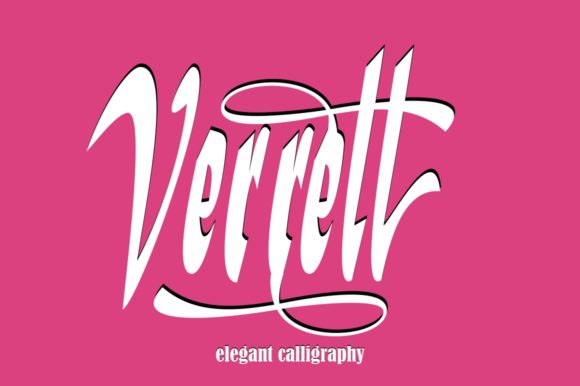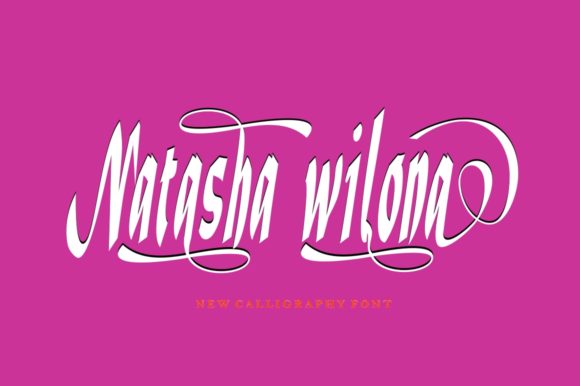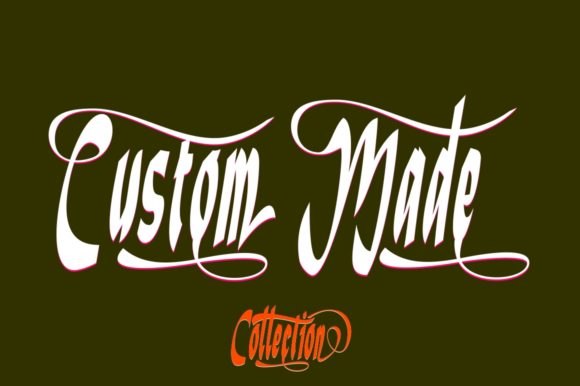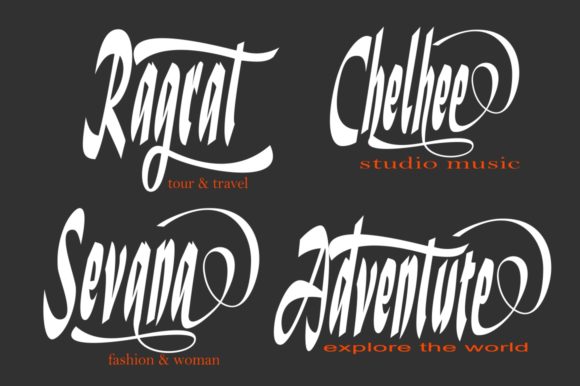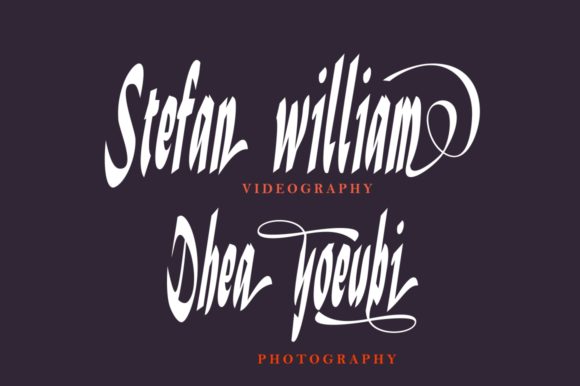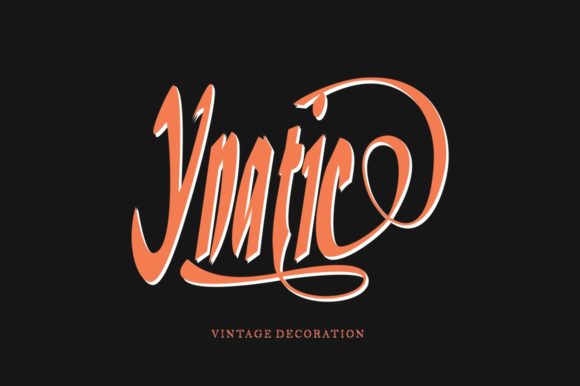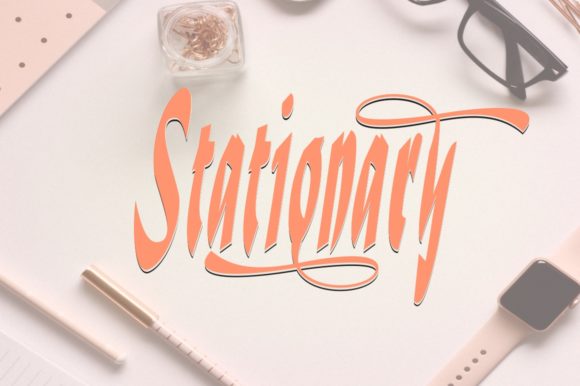
HomeScript FontsVerrell Font Script Fonts Verrell Font FacebookXPinterestWhatsApp Verrell Font Poster 2 Verrell Font Poster 3 Verrell Font Poster 4 Verrell Font Poster 5 Verrell Font Poster 6 Verrell Font Poster 7 About Verrell Font Verrell is a stunning script with bold letters. It will turn any design idea into a true original. DOWNLOAD NOW People also explored Asim Font Babenet Font Sunshine Memories Font Gummies Font The Quietty Font Elizabeth Font Argodame Outline Extra Bold Font Keystone Font The Farm Font 347 0 TagsVerrell Font Previous articleFreestyle FontNext articleDragonfly Font LEAVE A REPLY Cancel reply Comment: Please enter your comment! Name:* Please enter your name here Email:* You have entered an incorrect email address! Please enter your email address here Website: Save my name, email, and website in this browser for the next time I comment. Personal Use Free Avagan Personal Use Free Read more about this font Dear Monita Personal Use Free Read more about this font Vivacious Personal Use Free Read more about this font Vembazax Rm Personal Use Free Read more about this font BLOG Using Fonts in Digital Marketing: Tips to Strengthen Your Brand Identity In the realm of digital marketing, every visual element plays a crucial role in shaping a brand's identity, and fonts are no exception. The... Free Fonts Risk: Why Free Fonts Can Be Dangerous for Designers Best Fonts for YouTube Videos: Make Your Thumbnails Stand Out How to Install and Use Fonts on Windows, macOS, and Web Projects